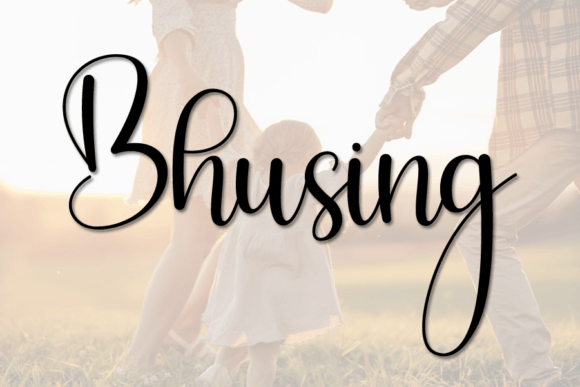
The Bhusing Font: A Timeless Classic for Creative Projects
I’ll never forget the time I was working on a branding project for a trendy new coffee shop. My client was adamant that they wanted a font that was both modern and vintage, with a dash of whimsy. I scoured the internet for hours, but nothing seemed quite right. That was when I stumbled upon the Bhusing font. It’s a classic and simple handwritten script that has become a staple in my design toolkit.
A Personal Review: What I Love About Bhusing
So, what makes Bhusing so special? Here are a few things that I love about this font:
• ✨ Unique yet legible: Bhusing has a distinctive, hand-crafted feel that’s both eye-catching and easy to read.
• ✅ Versatile: This font is suitable for a wide range of projects, from logotypes and headlines to posters, magazines, and even comic books.
• 💫 Free-spirited: Bhusing has a playful, carefree vibe that’s perfect for brands that want to convey a sense of creativity and spontaneity.
While Bhusing is an excellent font, it’s not without its quirks. Here are a few things to keep in mind:
• ⚠️ Limited formal settings: Due to its informal, handwritten nature, Bhusing may not be the best choice for formal documents or corporate reports.
• 🤔 Glyph limitations: While Bhusing has a wide range of glyphs, it may not have every special character or symbol you need.
The Story Behind Bhusing
Bhusing is a font created by a talented designer who’s passionate about typography. While I couldn’t find much information on the designer’s background, it’s clear that they were inspired by the beauty of handwritten scripts and the need for unique, creative fonts in the design world.
What is the best use for Bhusing? Bhusing is perfect for creative projects that require a unique, handwritten script font, such as logotypes, headlines, posters, and magazines.
Is Bhusing suitable for body text? While Bhusing is legible, it’s not ideal for long blocks of body text. It’s best used for headlines, titles, or short paragraphs.
Is Bhusing a formal font? No, Bhusing is an informal, handwritten script font that’s best suited for creative, playful projects.